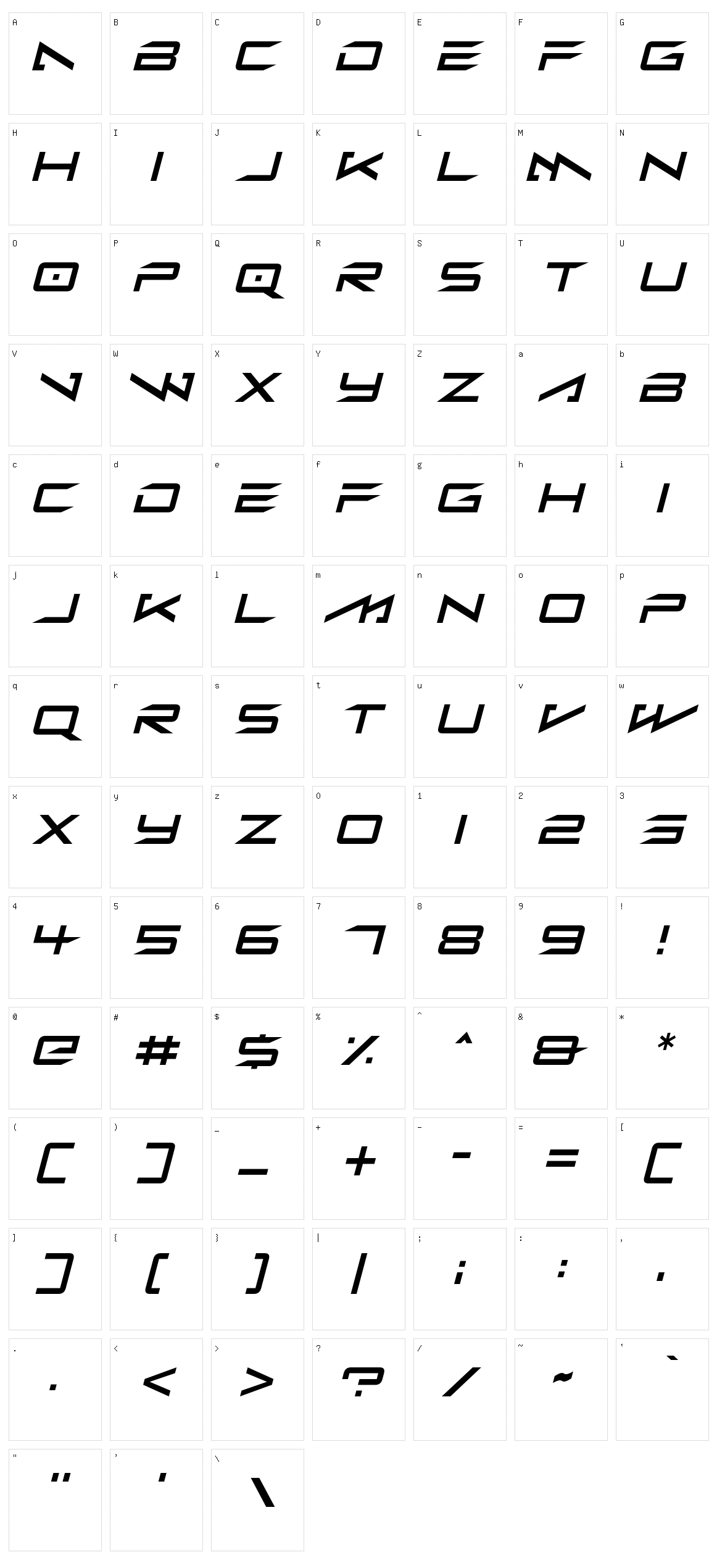
Alien Moon
Designed by: Hawtpixel
For alternate (flipped) characters - A,M,W,V, please use uppercase.
For alternate (dotted) characters - O,Q, please use uppercase.
Alien Moon V1.0
Alien Moon Character Set